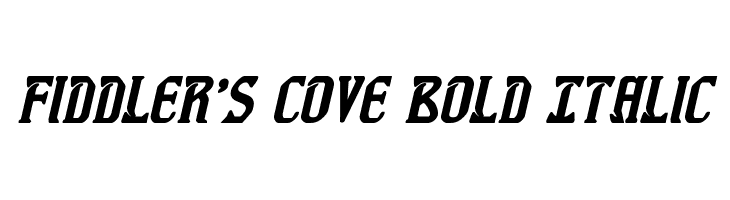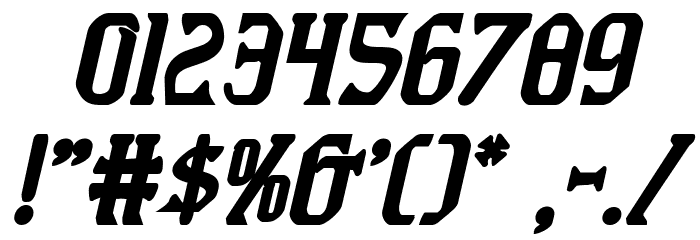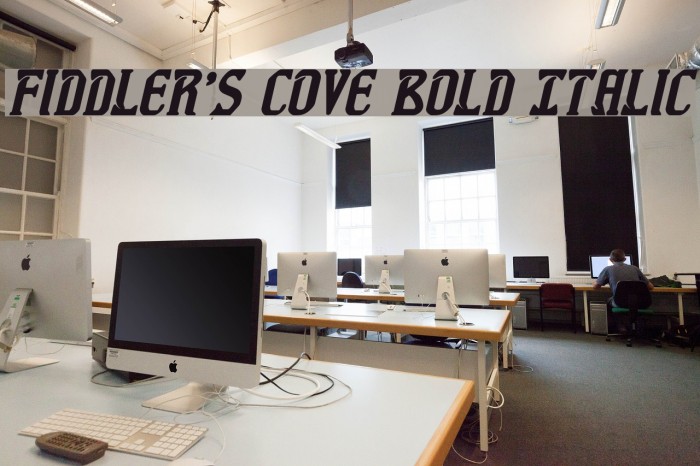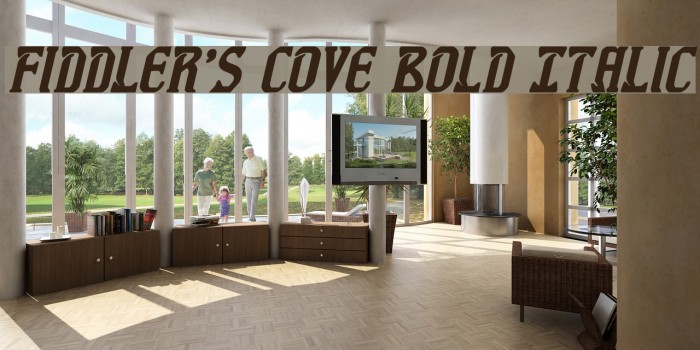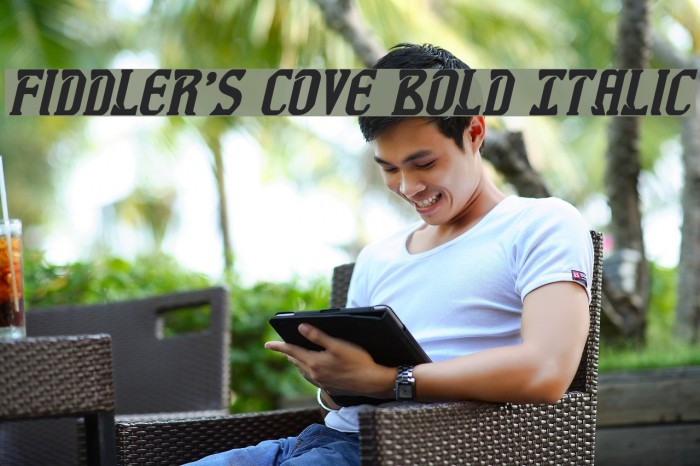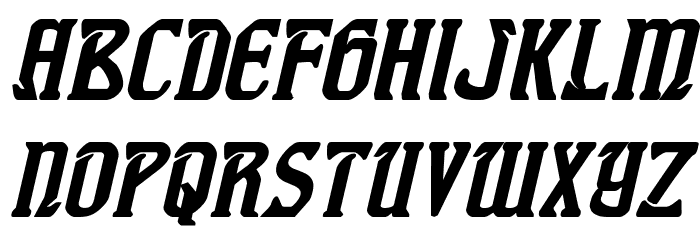
Fiddler's Cove Bold Italic Font
This font features a bold and italicized style with a strong presence. The characters are designed with a slight slant, giving them a dynamic and energetic appearance. The strokes are thick and consistent, providing a robust and impactful look. The uppercase and lowercase letters maintain a uniform style, while the numbers and special characters complement the overall design. The font's boldness and italic nature make it suitable for attention-grabbing headlines and titles.
A bold, italicized font with thick strokes and a dynamic slant.
• Proposed Projects: Ideal for branding, posters, and headlines where a strong and energetic typeface is needed.
• Category: Decorative/Display
• Overall Style: Modern
• Use Case: Headlines, Logos